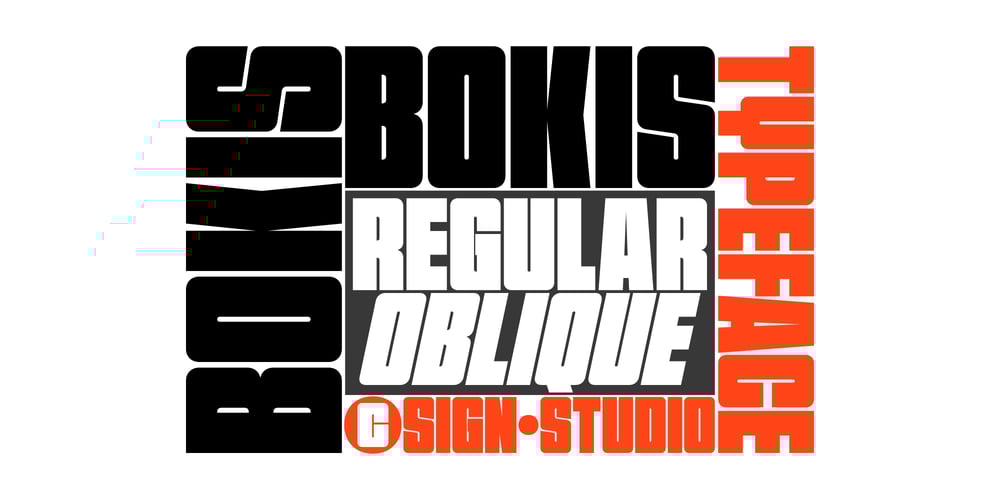
Bokis Font Family was designed by Sugi Yanto and published by Sign Studio. Bokis contains 2 styles and family package options. Bokis is a sans serif family that has simple and strong characters. This font will provide a confident and impressive base headline to any of your designs. Balance on each side is well maintained. It’s ideal for headlines, titles, posters, branding, and logotypes that require big impact.